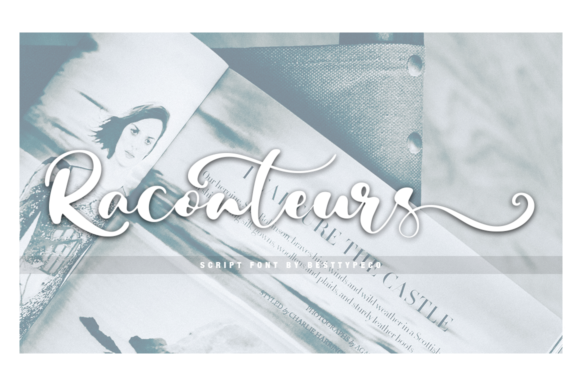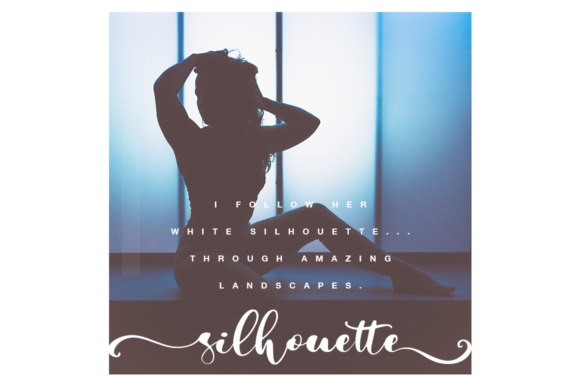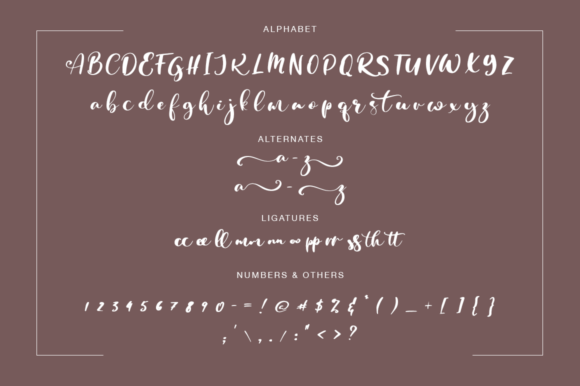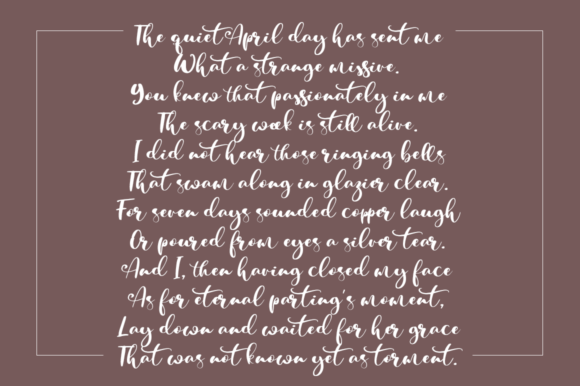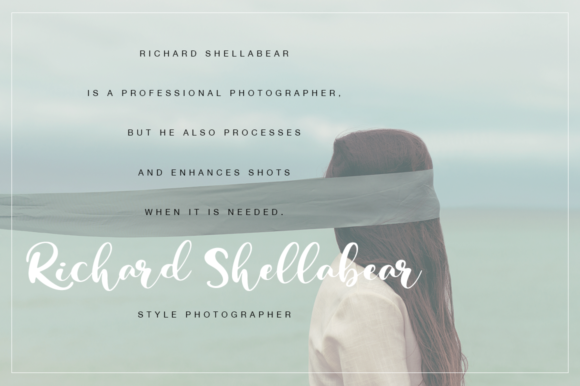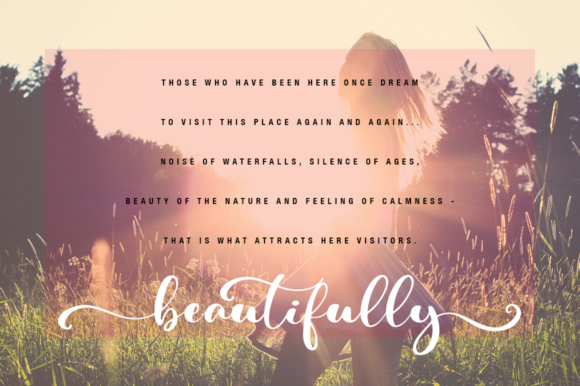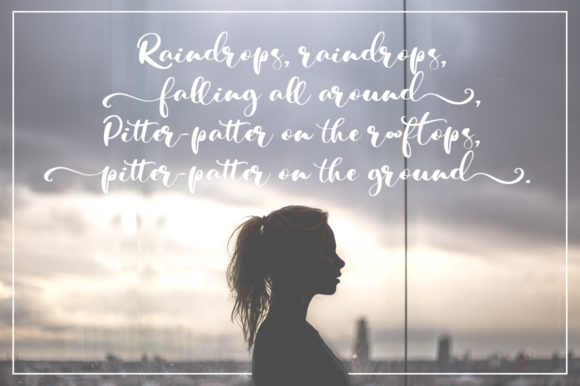
Raconteurs Font
About Raconteurs Font
The Raconteurs is a beautiful calligraphy script. It has a feminine and elegant style which makes it perfect for luxurious designs.
Very suitable for greeting cards, branding materials, business cards, quotes, posters, and more!This font are perfect for wedding postcard. Or you can create perfect and unique design of your logo, blog, stationery, marketing, magazines and more ????